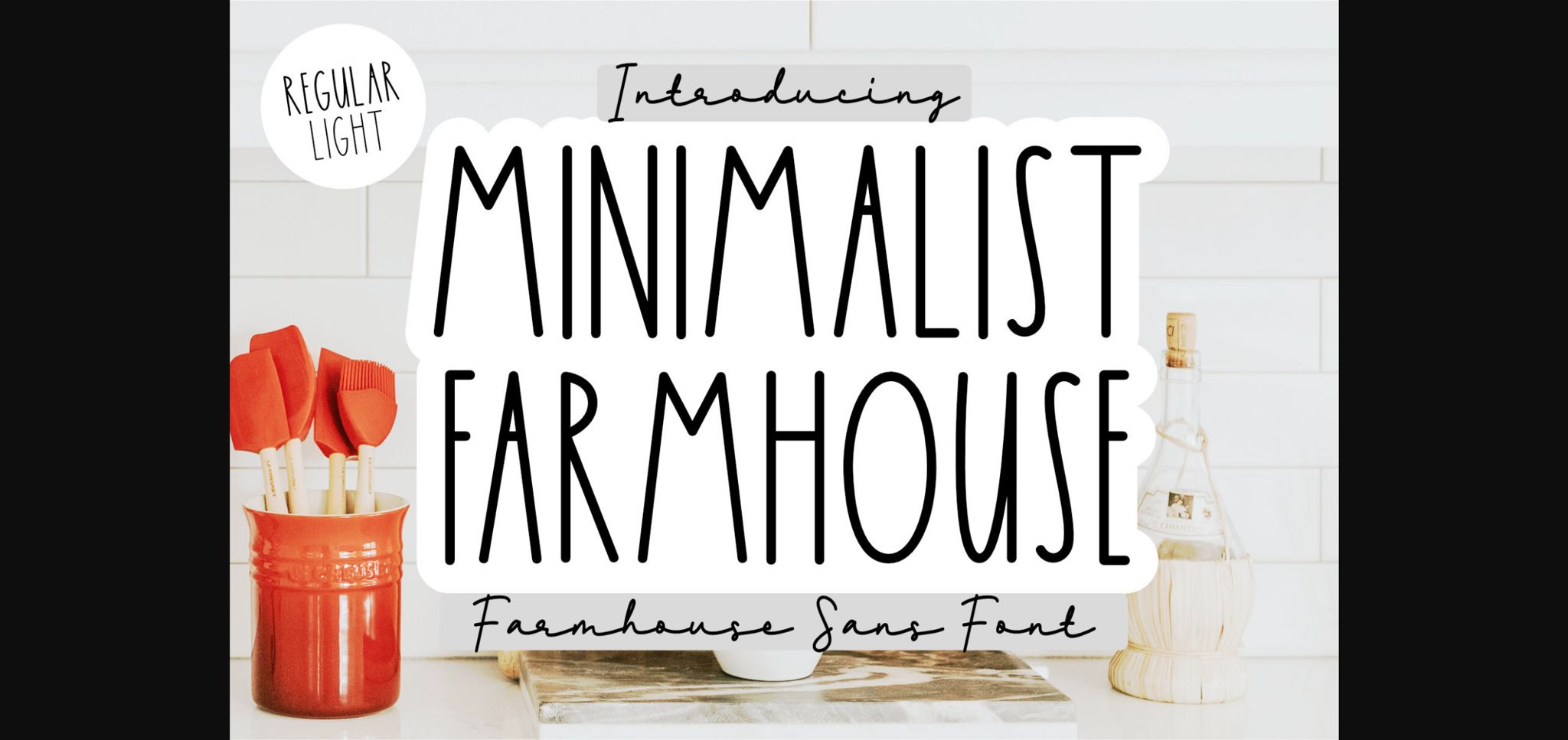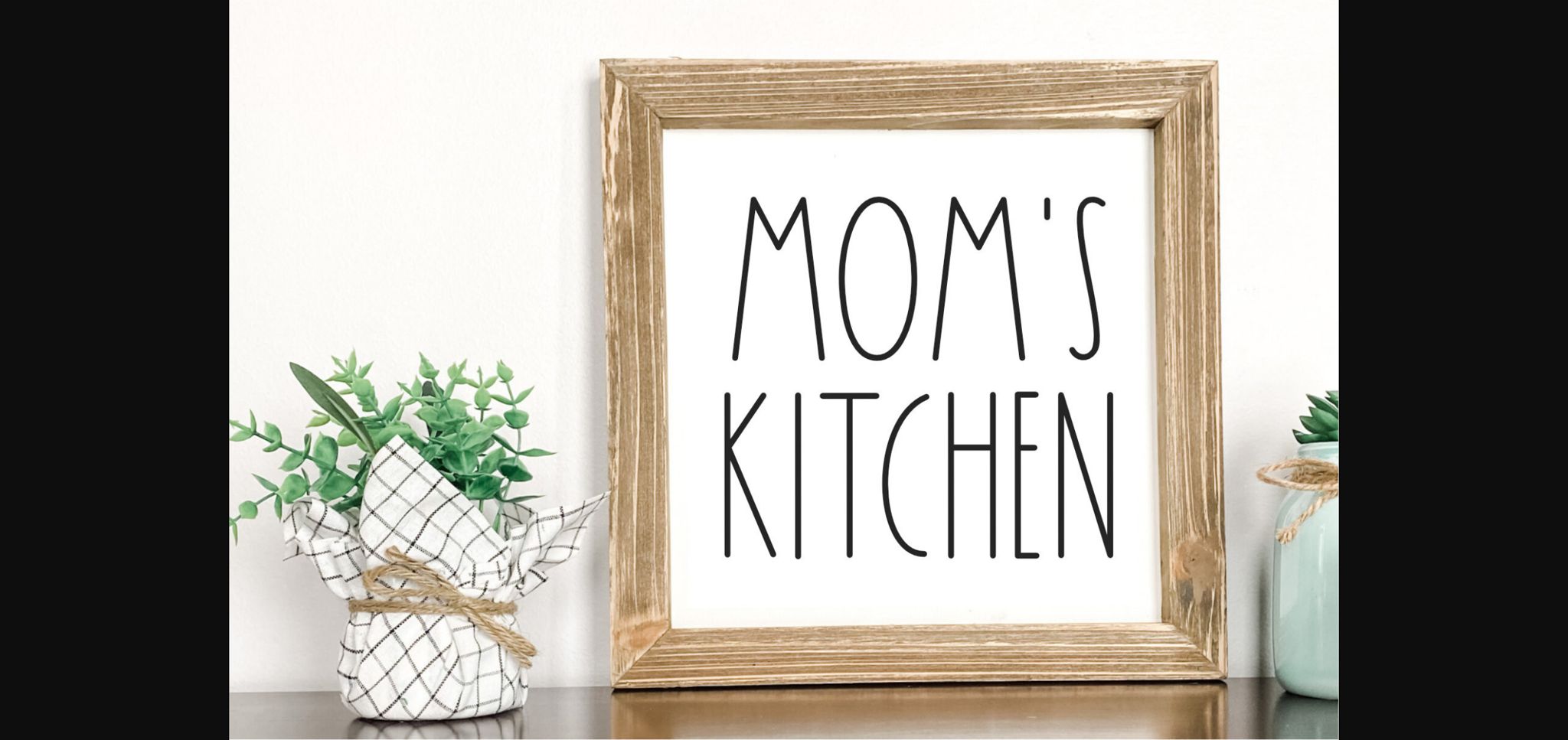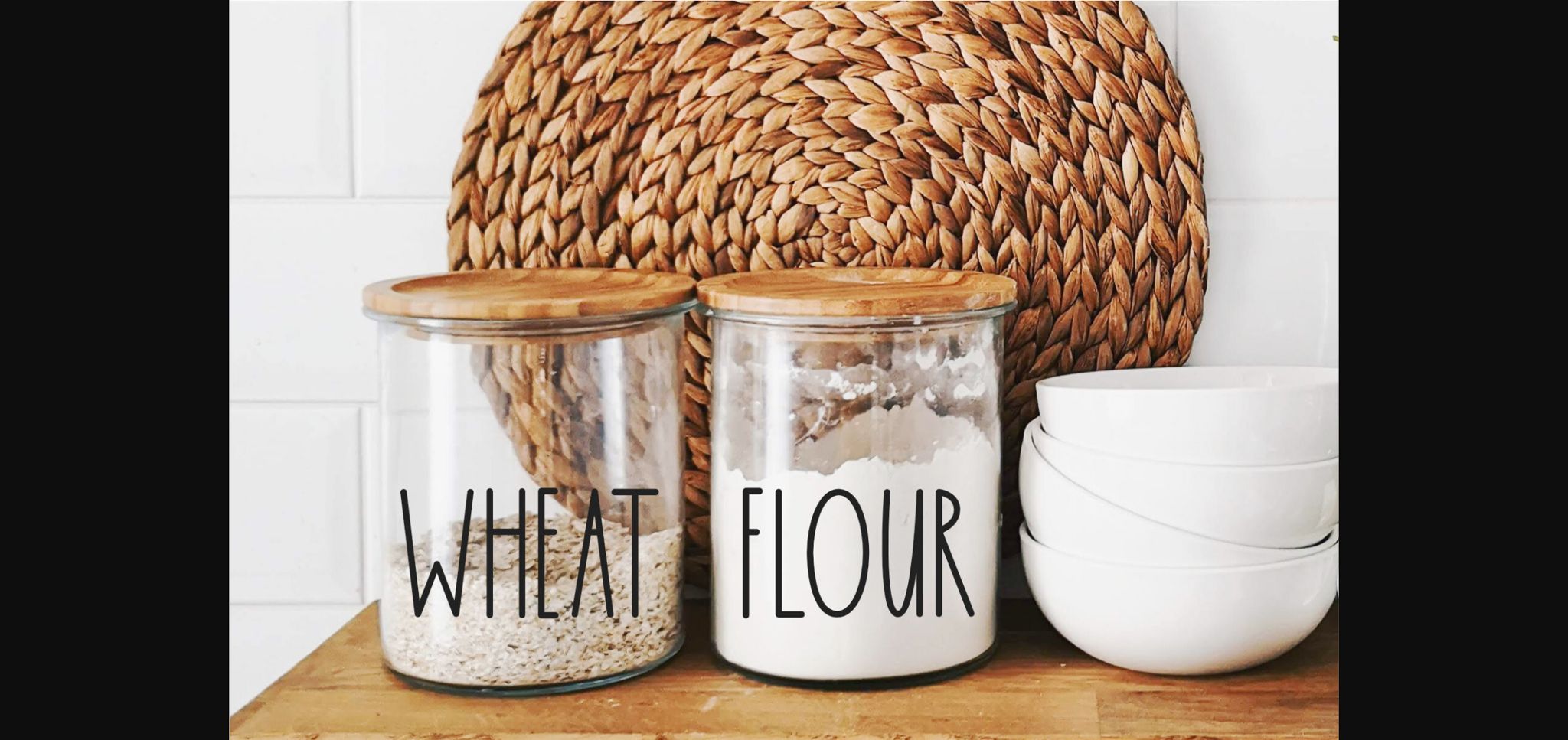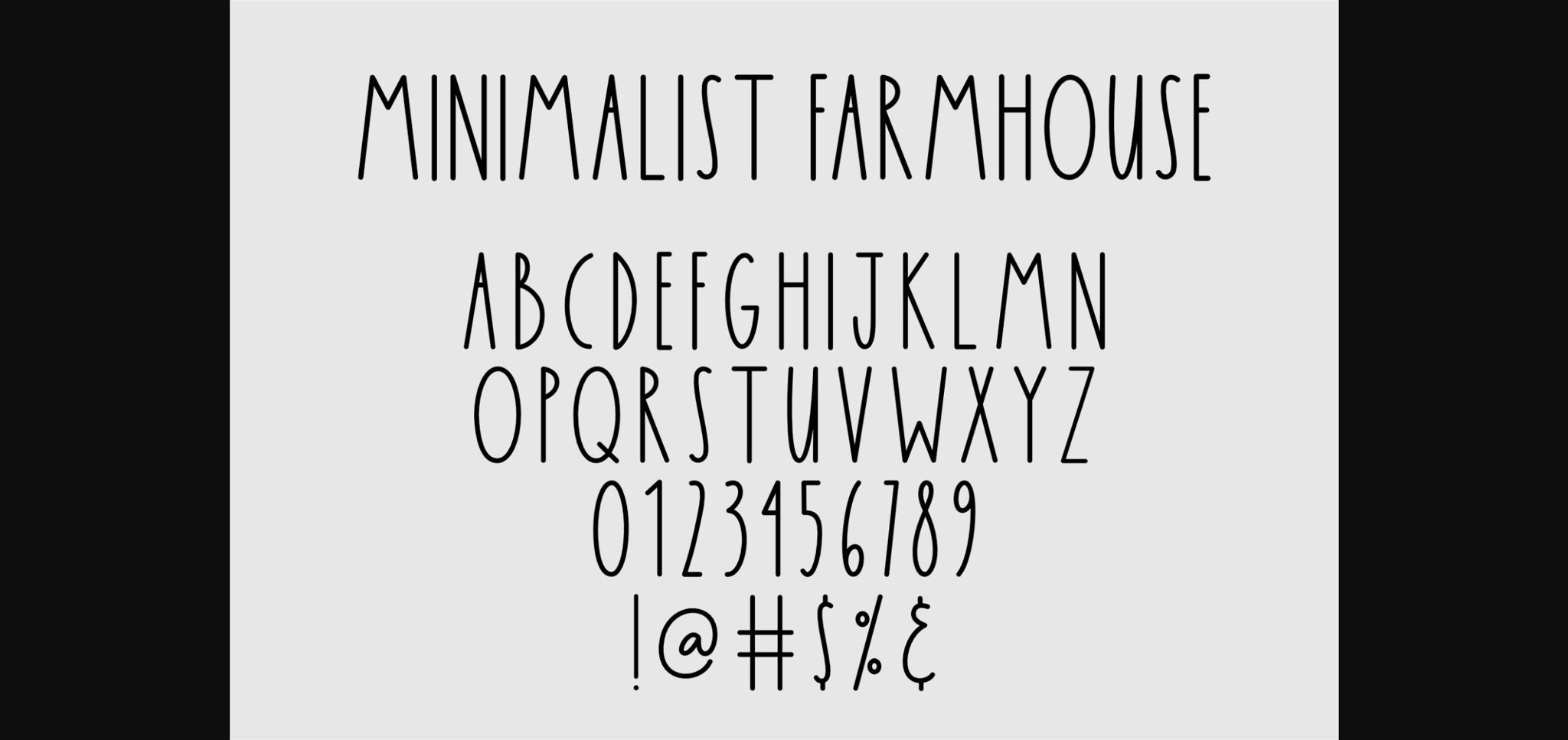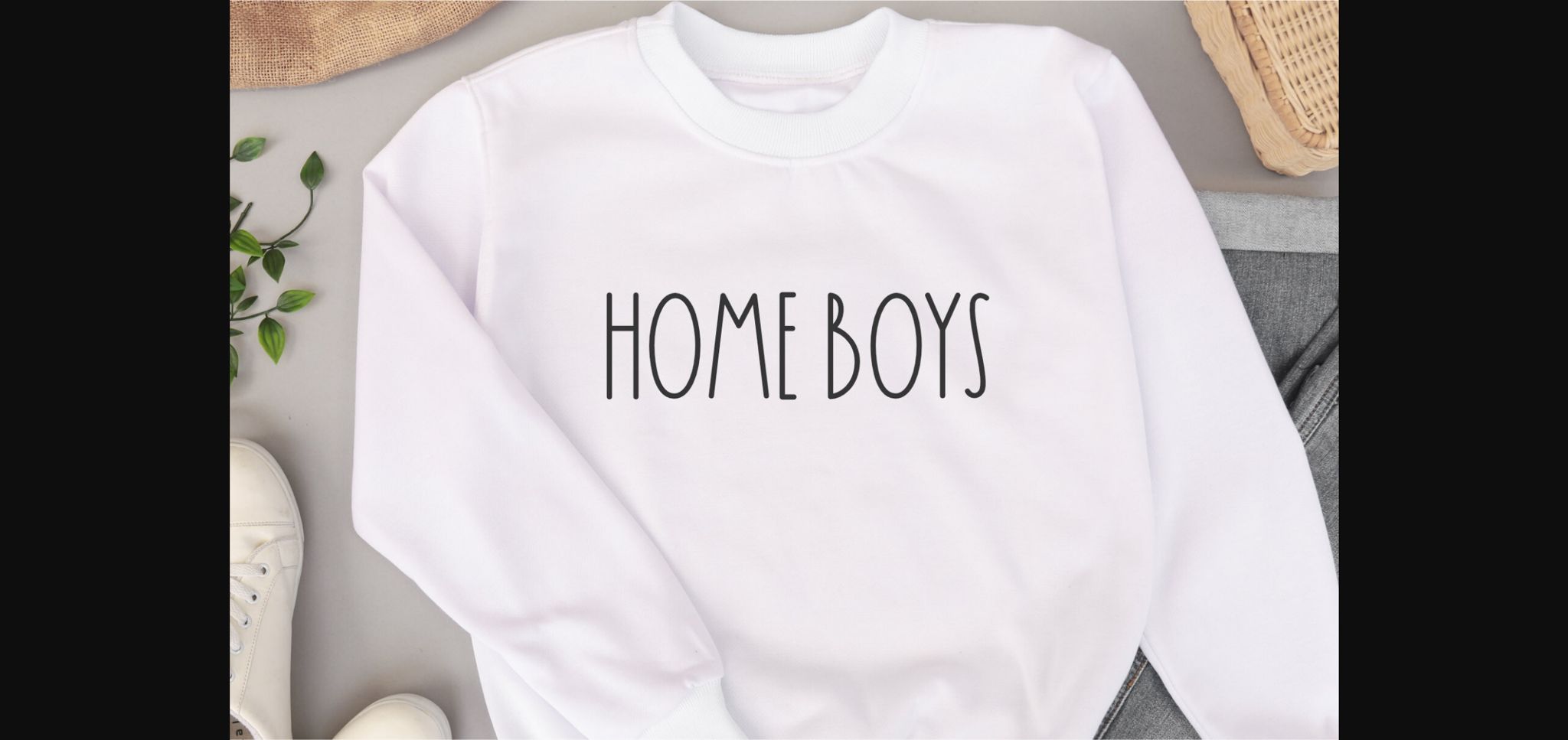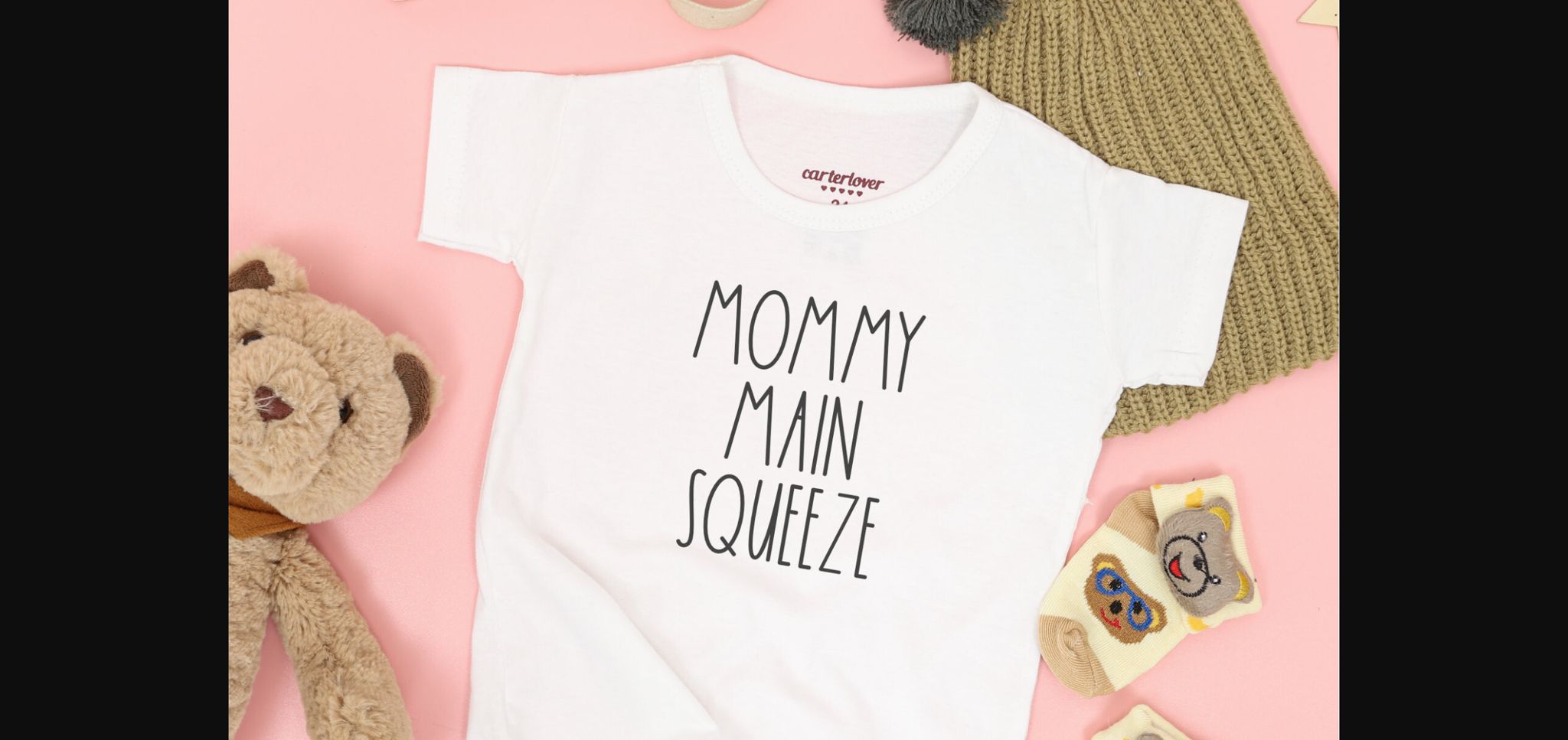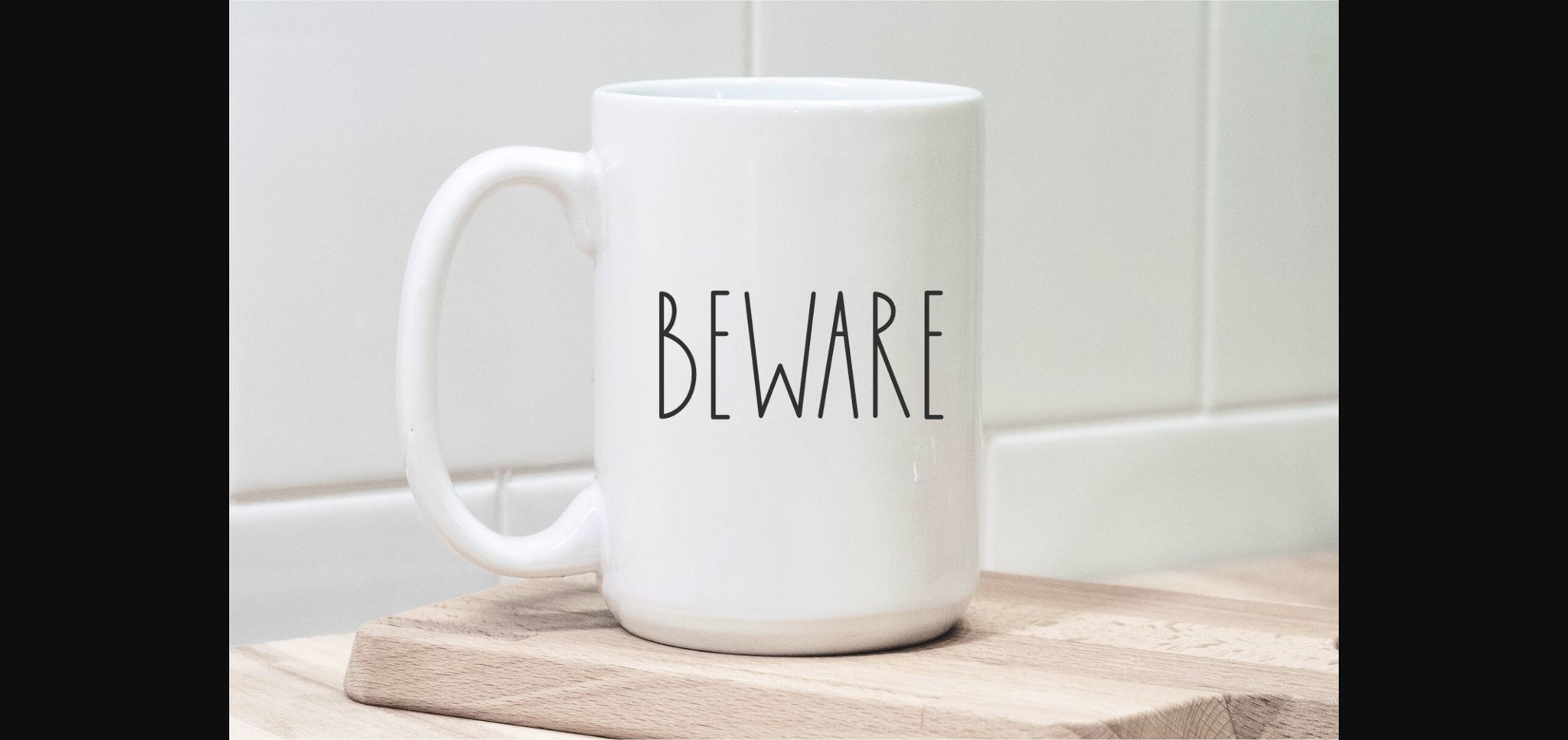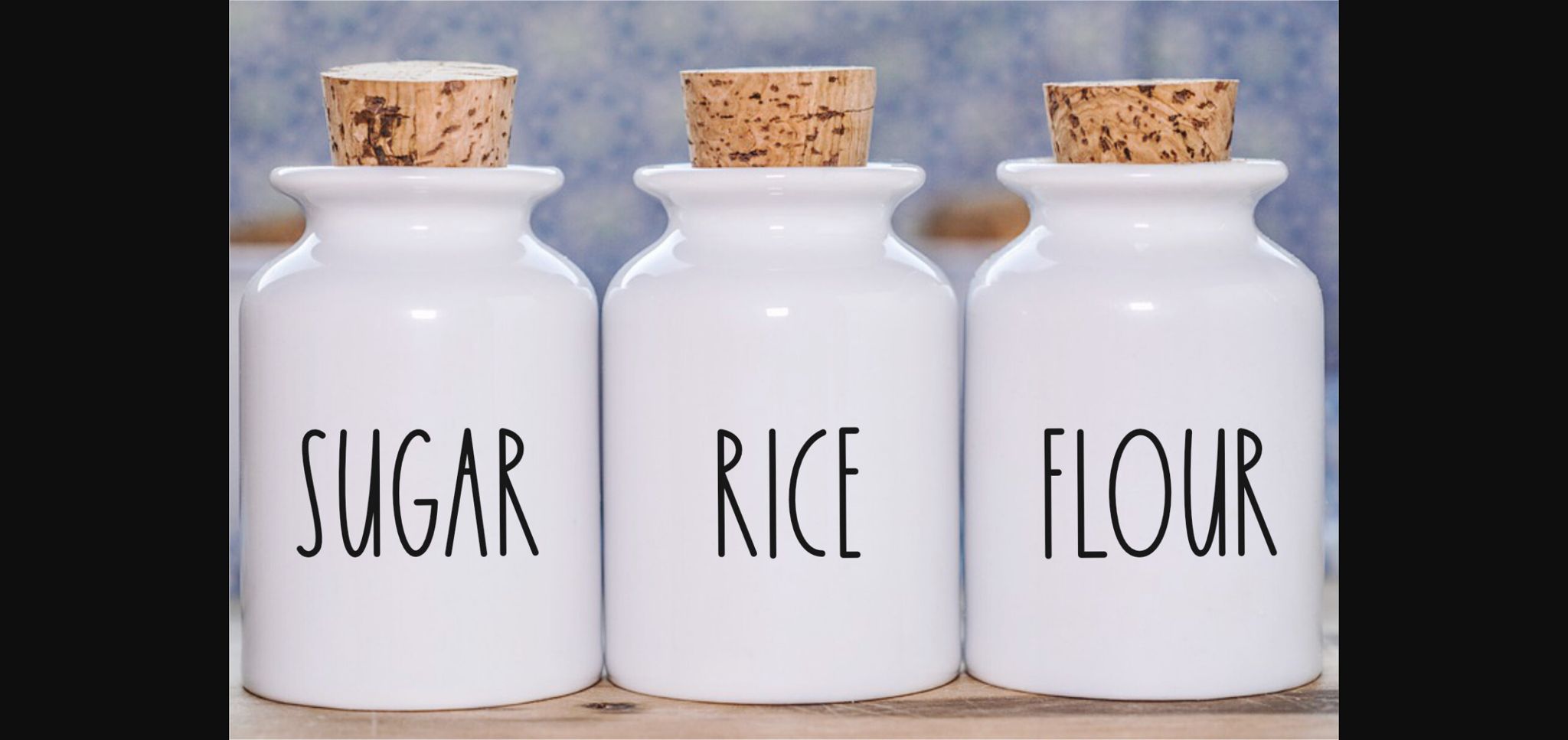
Minimalist Farmhouse Font
About Minimalist Farmhouse Font
Introducing ‘Minimalist Farmhouse’ Font – a tribute to the timeless elegance and simplicity of farmhouse style. This versatile farmhouse font is designed for Cricut enthusiasts and sign makers looking to infuse their projects with rustic charm. With its clean and minimalist appeal, the ‘Minimalist Farmhouse’ Font is the perfect choice for creating captivating signage and decor.